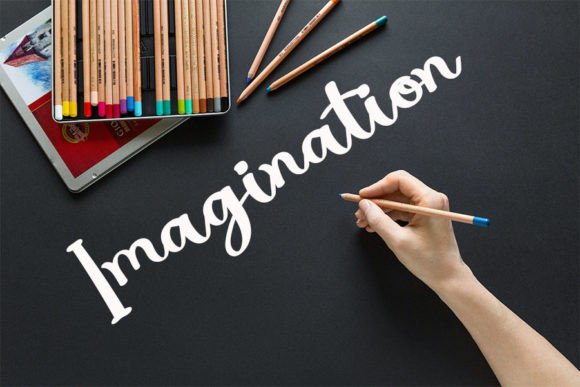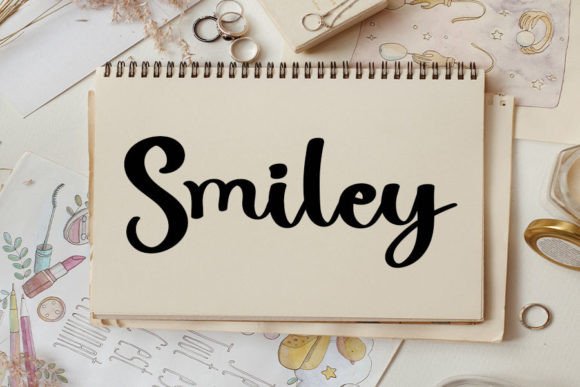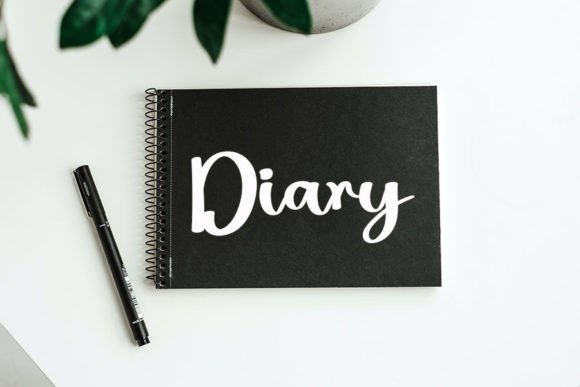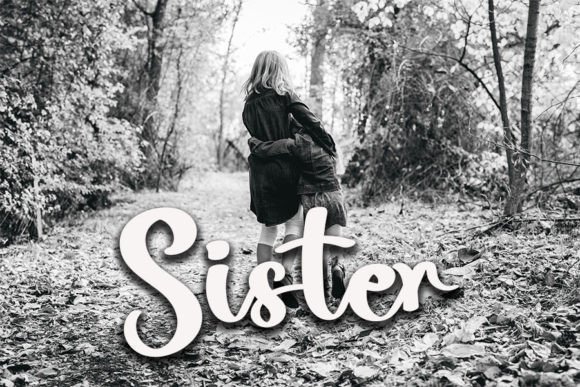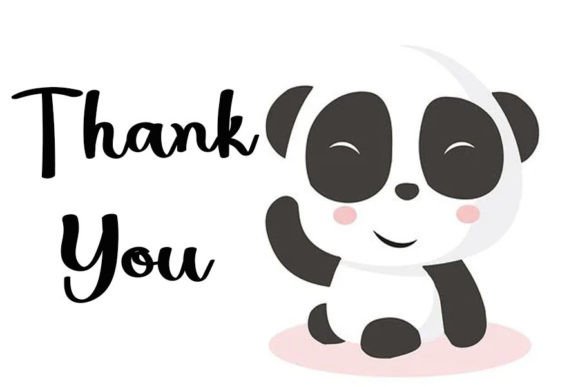
Bear Font: The Magical Handwritten Font for Your Creative Projects
Are you a designer, crafter, or DIY enthusiast looking for a unique and elegant font to elevate your creative projects? Look no further than Bear Font, a magical handwritten font that combines clean lines with a touch of quirkiness. In this article, we’ll dive into the world of Bear Font, exploring its features, benefits, and uses, and why it’s the perfect fit for your logos, branding, social media, and crafty DIY projects.
What is Bear Font?
Bear Font is a carefully crafted handwritten font that exudes elegance and sophistication. With its clean lines and subtle imperfections, this font is perfect for those who want to add a personal touch to their designs without sacrificing professionalism. Whether you’re creating a logo, branding materials, or social media graphics, Bear Font is the ideal choice for adding a touch of whimsy and charm.
Key Features of Bear Font
- Handwritten elegance: Bear Font boasts a beautiful, handwritten aesthetic that’s perfect for adding a personal touch to your designs.
- Clean and quirky: This font combines clean lines with subtle imperfections, giving it a unique and charming character.
- Versatile: Bear Font is suitable for a wide range of creative projects, from logos and branding to social media graphics and DIY crafts.
- Easy to read: Despite its handwritten nature, Bear Font is surprisingly easy to read, making it perfect for body text and captions.
Benefits of Using Bear Font
So why choose Bear Font for your creative projects? Here are just a few benefits of using this magical font:
- Stand out from the crowd: With its unique blend of elegance and quirkiness, Bear Font is sure to help your designs stand out from the crowd.
- Add a personal touch: This font’s handwritten nature gives your designs a personal, human touch that’s perfect for building brand connections with your audience.
- Save time and effort: With Bear Font, you can create professional-looking designs in no time, without sacrificing quality or style.
Uses for Bear Font
Bear Font is an incredibly versatile font that can be used for a wide range of creative projects, including:
- Logos and branding: Create a unique and memorable logo that reflects your brand’s personality and style.
- Social media graphics: Elevate your social media presence with eye-catching graphics that showcase your brand’s voice and aesthetic.
- DIY crafts: Add a touch of elegance and whimsy to your DIY crafts, from cards and invitations to scrapbooking and journaling.
- Stationery and paper goods: Create beautiful stationery, notebooks, and paper goods that showcase your personal style.
Tips for Using Bear Font
To get the most out of Bear Font, here are a few tips to keep in mind:
- Experiment with sizes and colors: Bear Font looks great in a variety of sizes and colors, so don’t be afraid to experiment and find the perfect combination for your design.
- Pair with other fonts: Try pairing Bear Font with other fonts to create a unique and eye-catching combination.
- Use for headlines and body text: Bear Font is suitable for both headlines and body text, making it a great choice for a wide range of design applications.